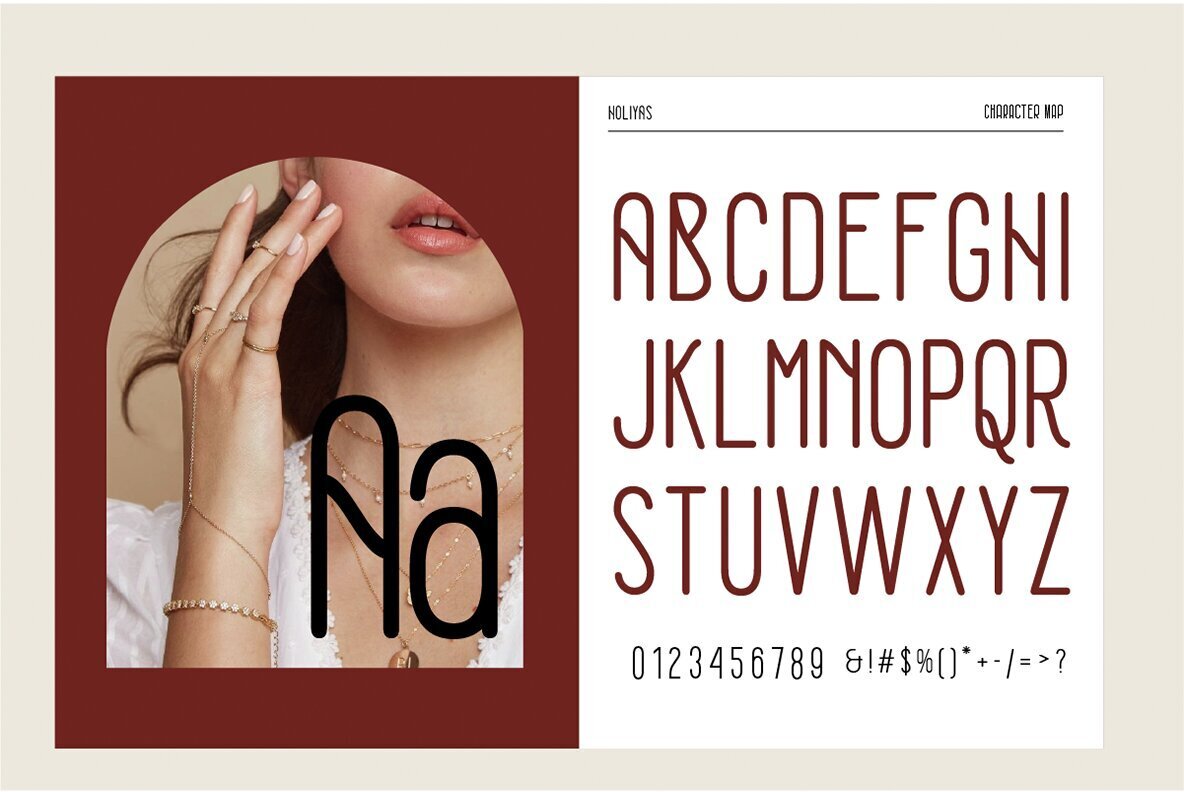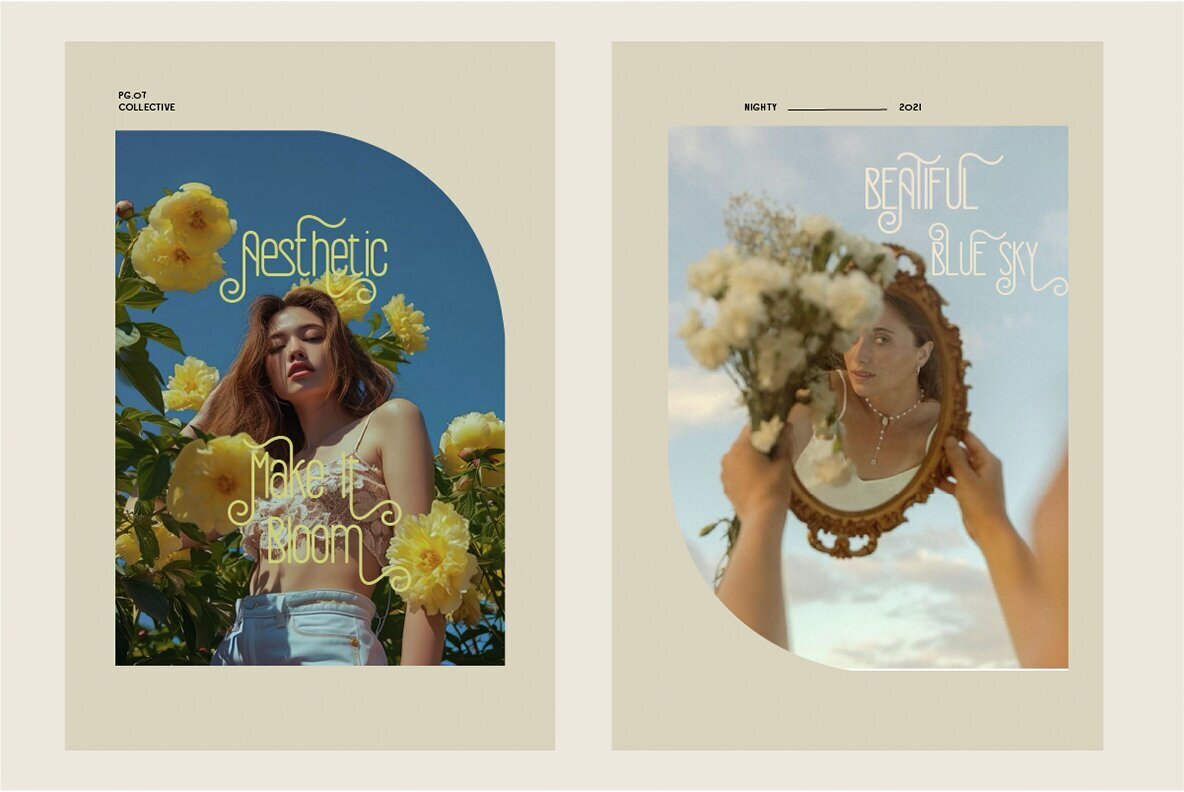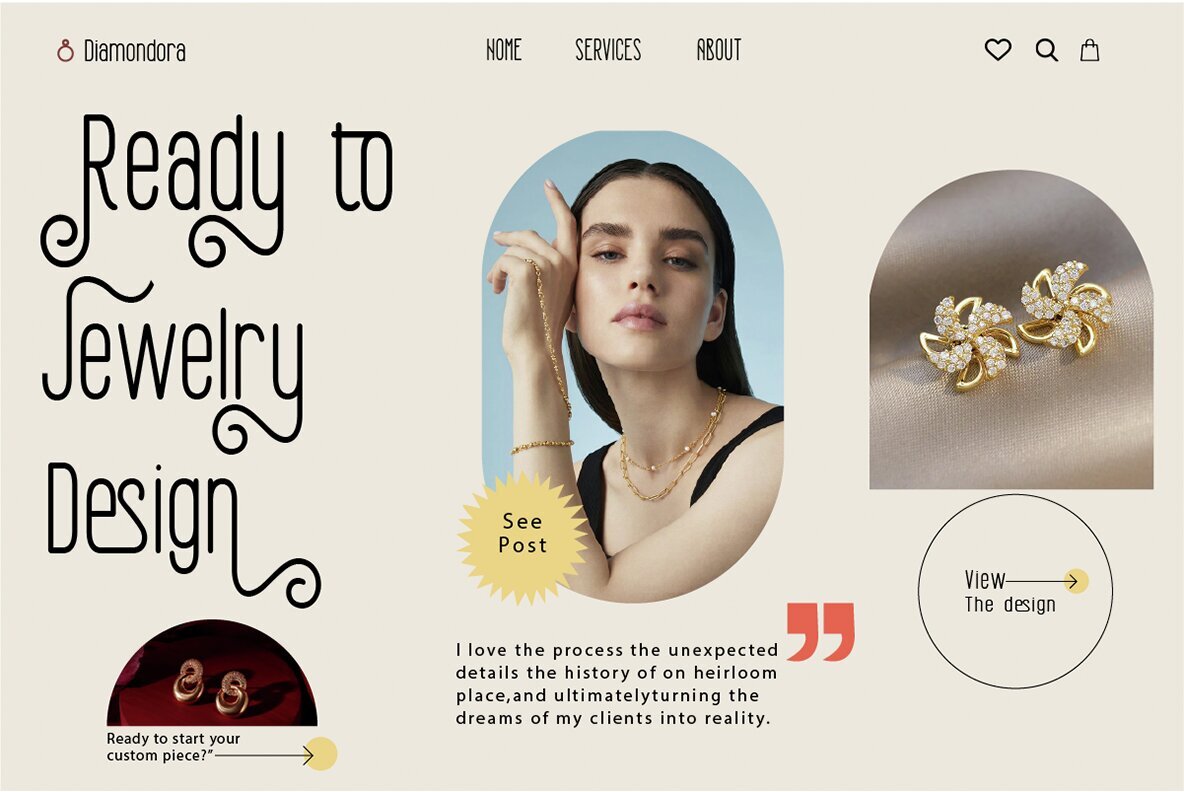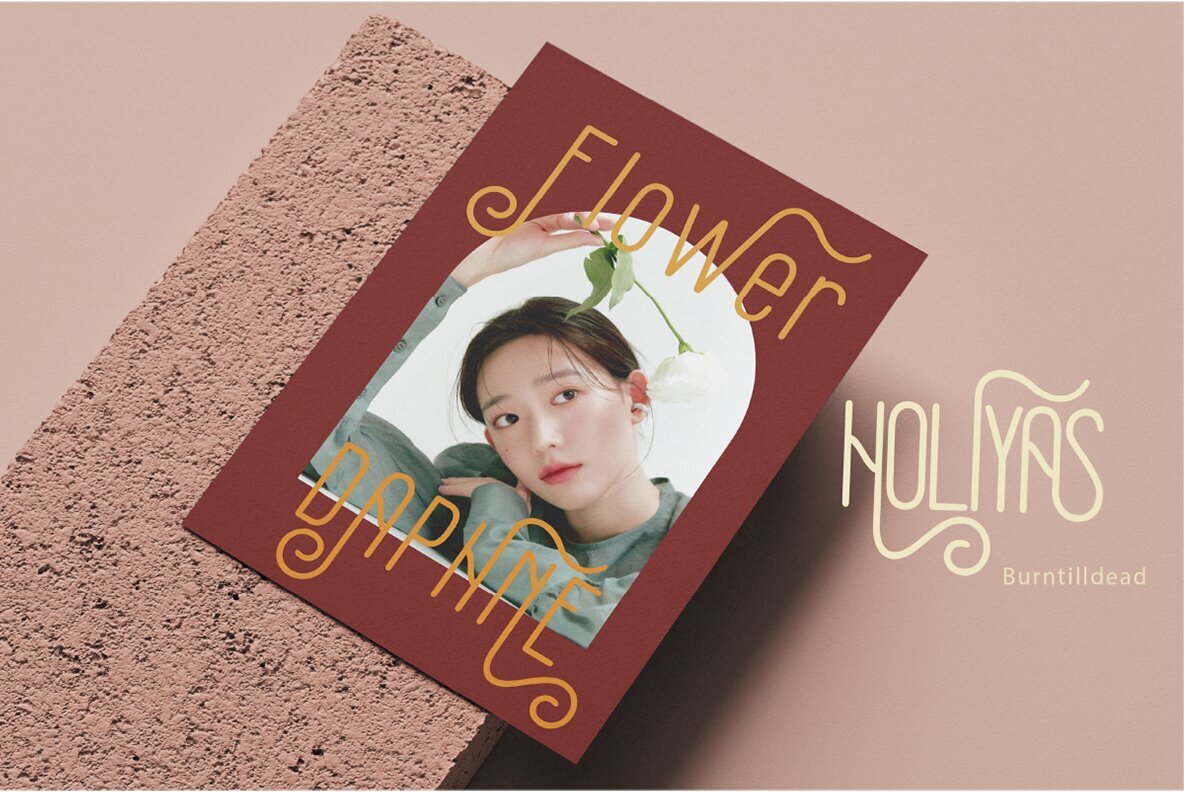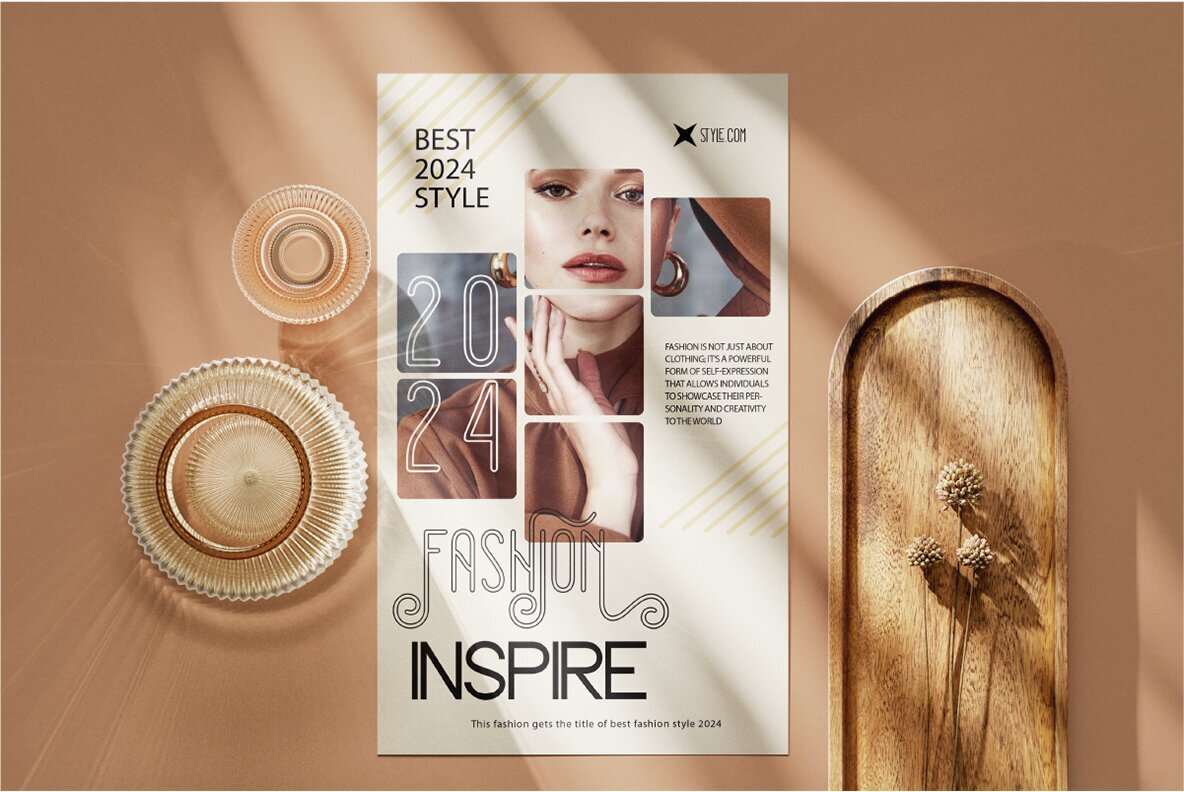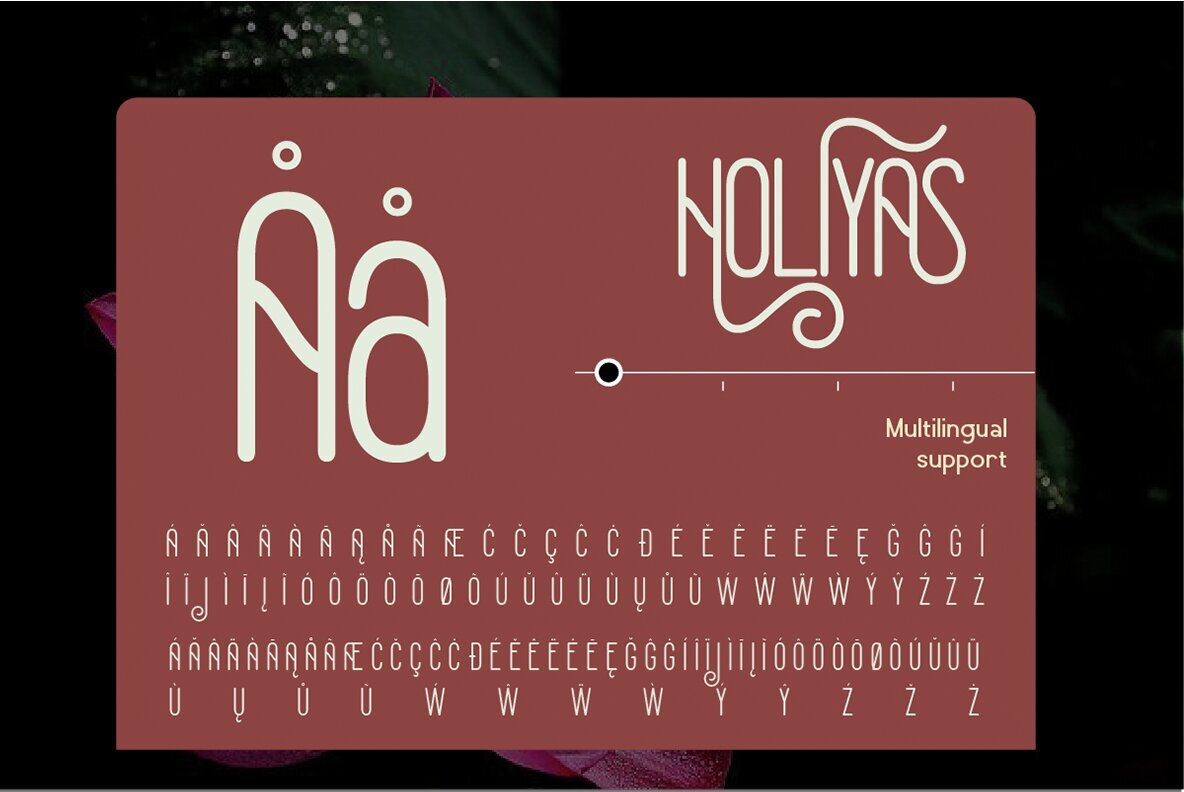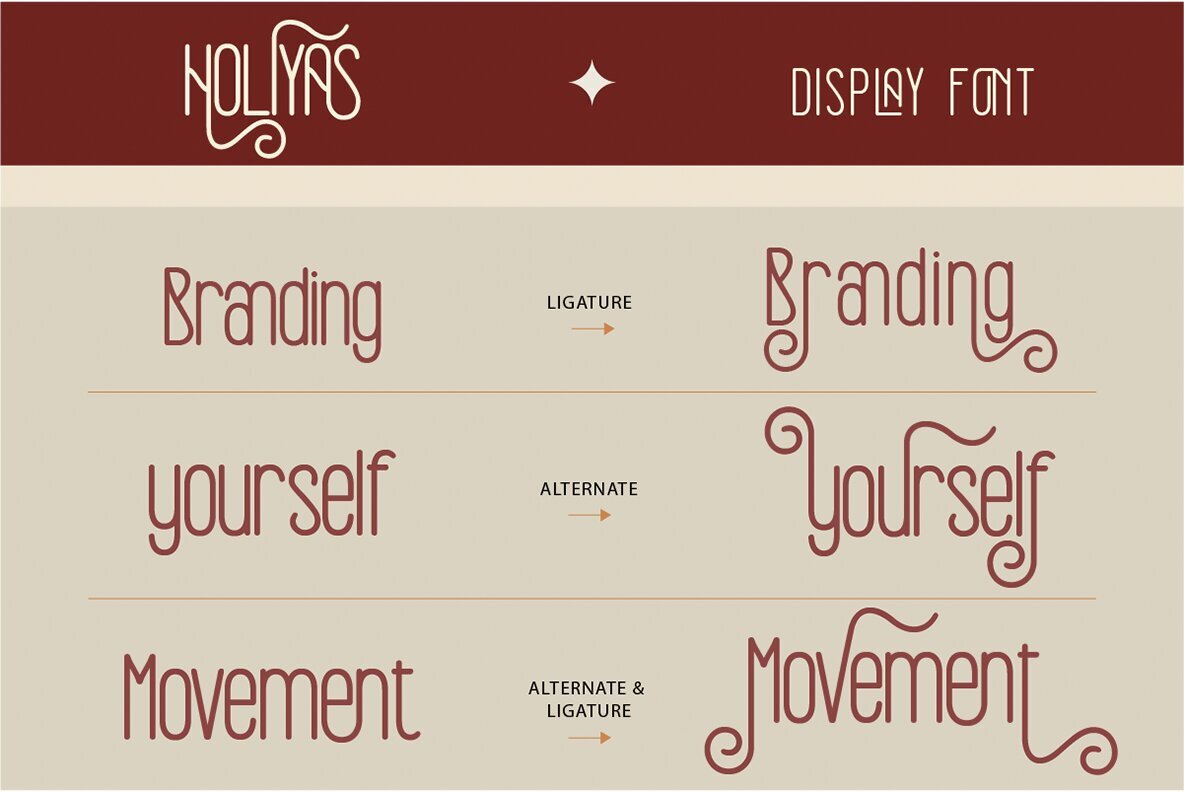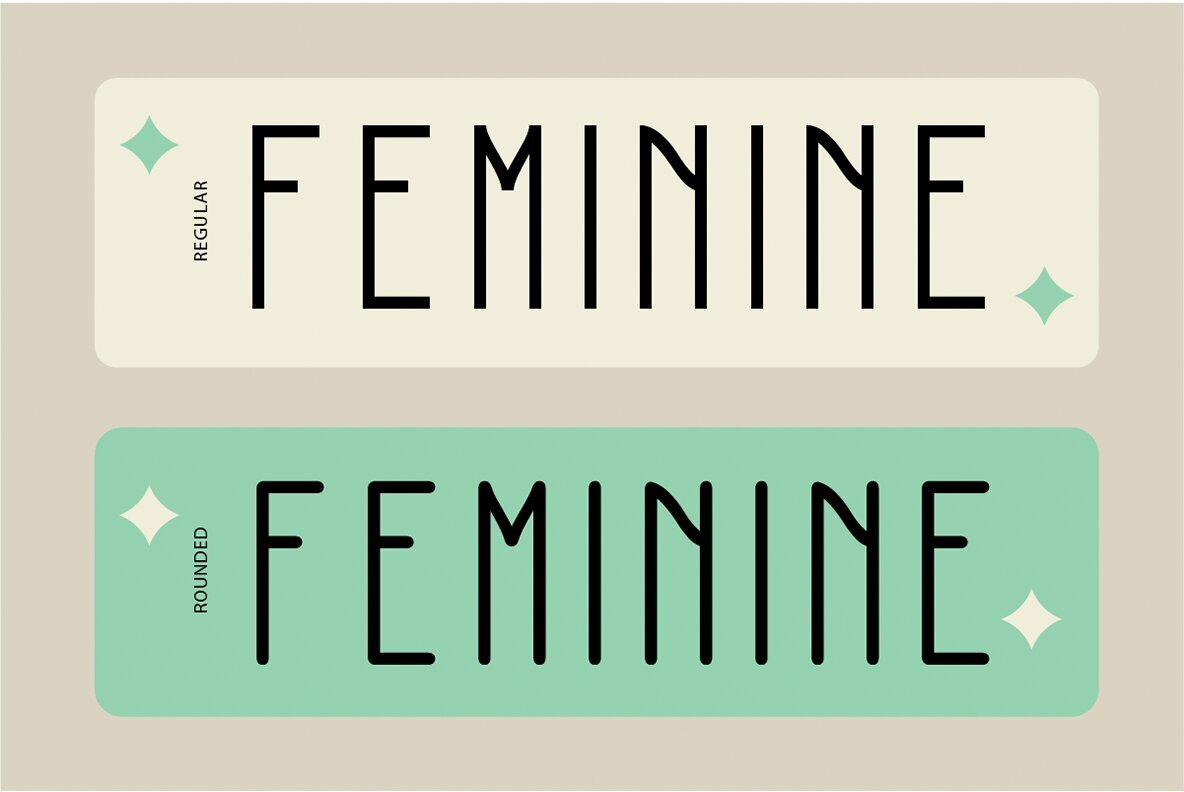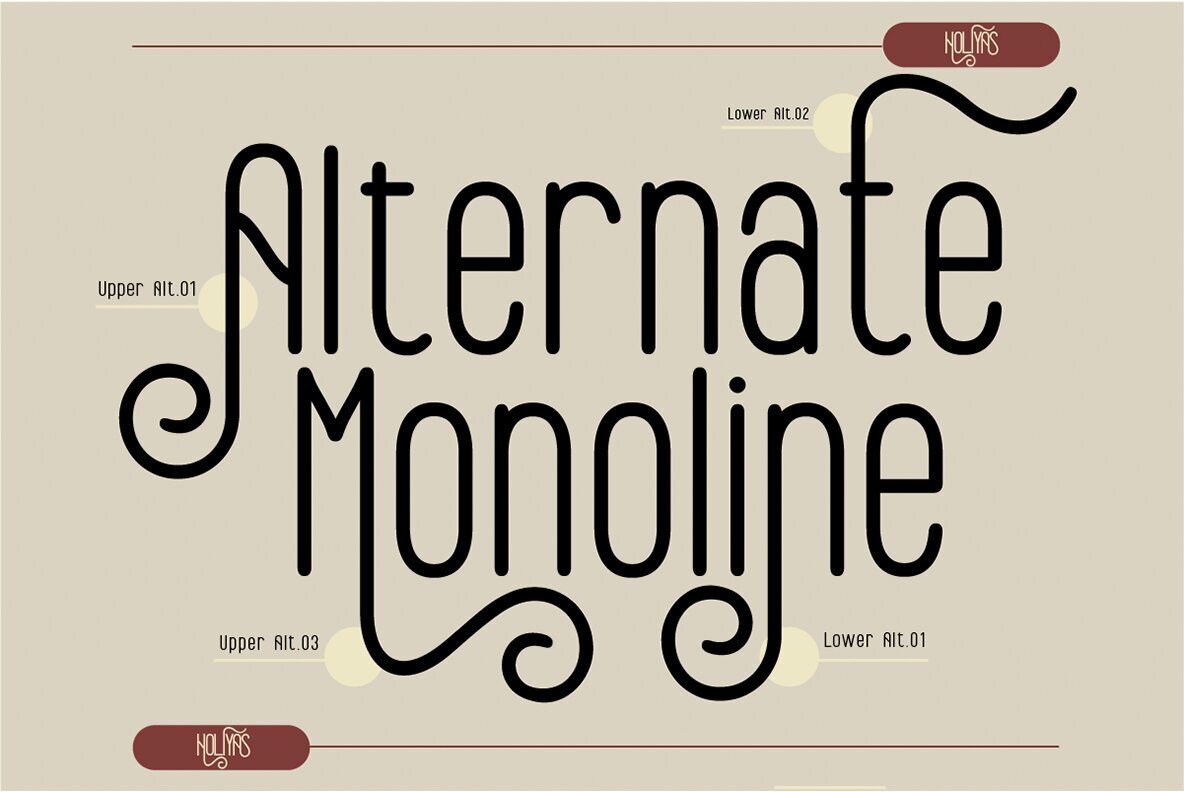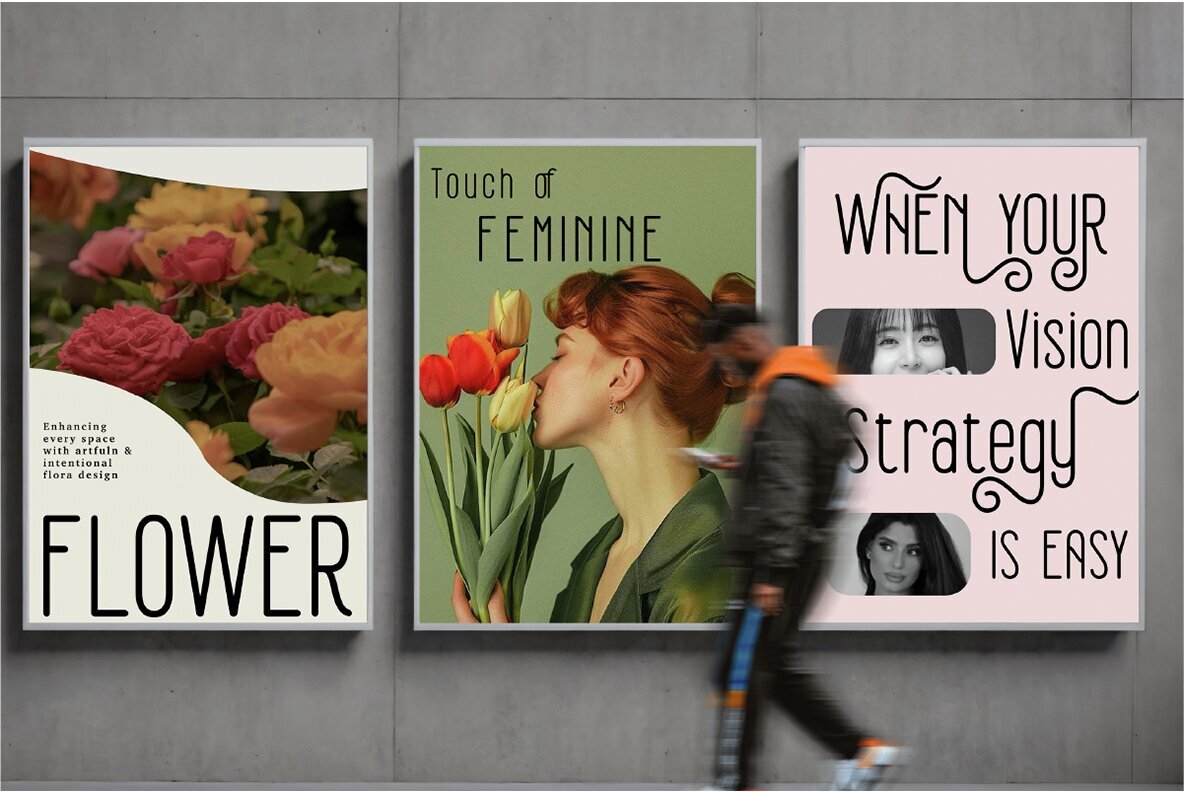
Holiyas Font
Holiyas Regular
Holiyas Rounded
Holiyas is a distinctive display font known for its unique and stylish characters, perfect for infusing a modern touch into your design projects. Featuring beautiful ligatures, Holiyas brings an artistic flair to any word, enhancing the visual interest of your work. With its elegant feel and versatility in two styles—regular and rounded—this font is ideal for creative branding, packaging, invitations, logos, and posters that require a soft yet striking impression.
This font includes a full A-Z set in both uppercase and lowercase, as well as numbers, punctuation, alternates, and ligatures. It supports multiple languages, making it a versatile choice for a wide range of applications. With Holiyas, you can add a stylish and modern touch to your designs while maintaining an elegant aesthetic.